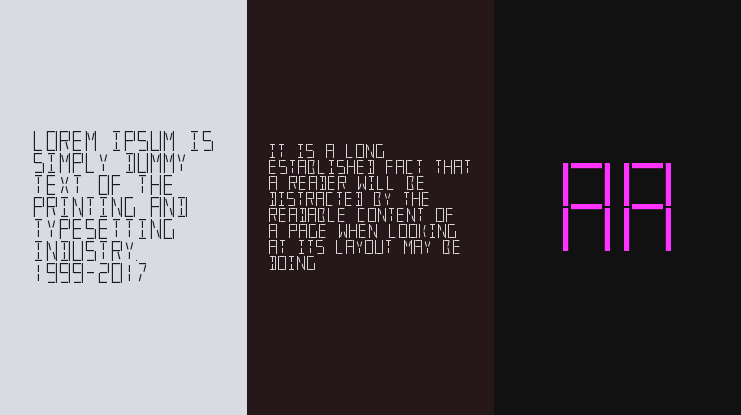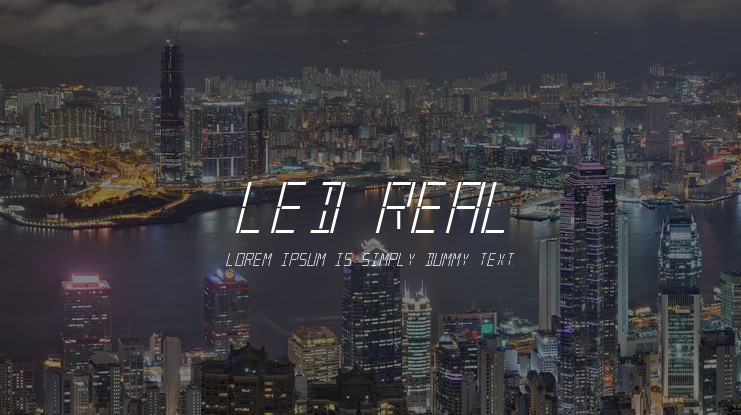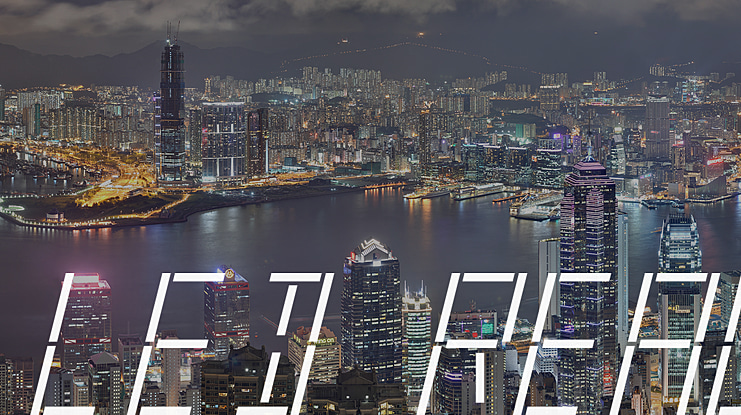
LED Real Font Family
Unlike most LED/LCD style fonts mine could be recreated with an
actual LED. I created this font working from memories of the good
old Speak and Spell display. Since I don't have an actual Speak
and Spell to work from I had to just do as well as I could in its
spirit. Be warned that some characters look just like others. The
( and the <, for instance. Also C and [. Most of these will be
pretty clear in context. To see all the sections of the LED "lit